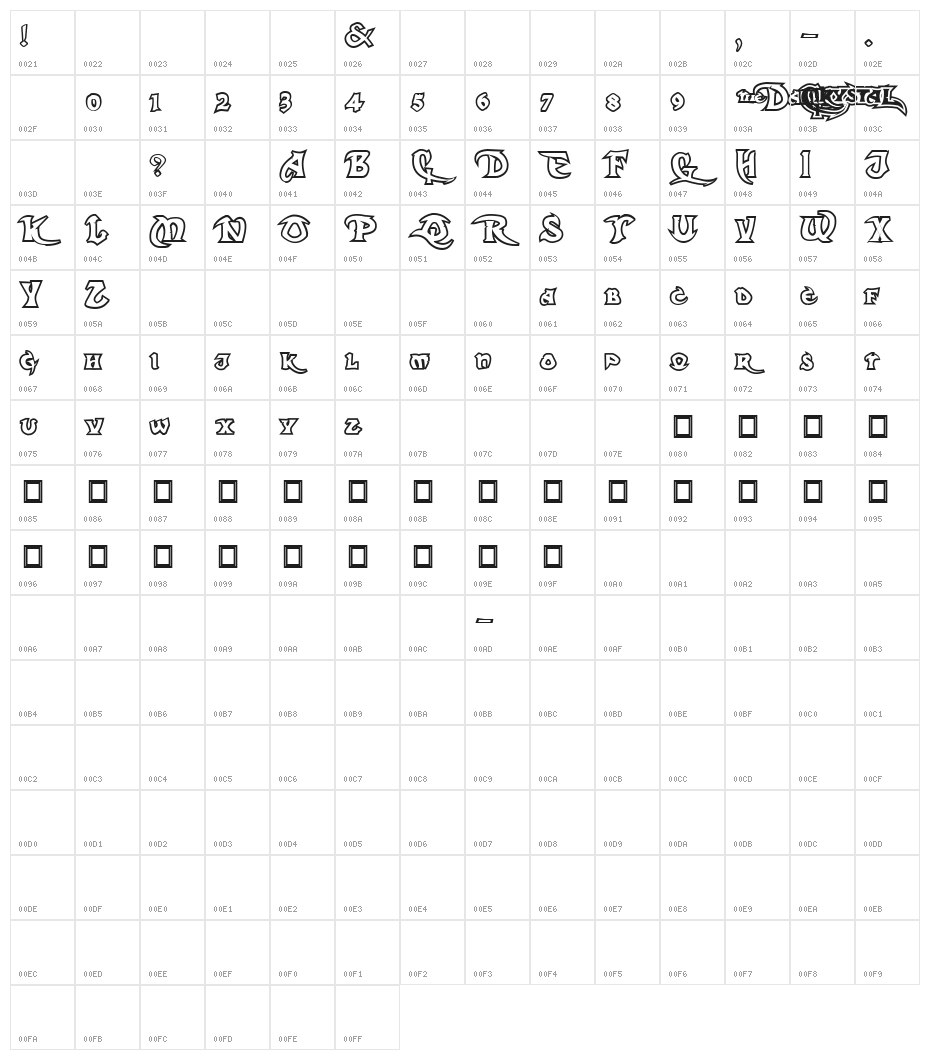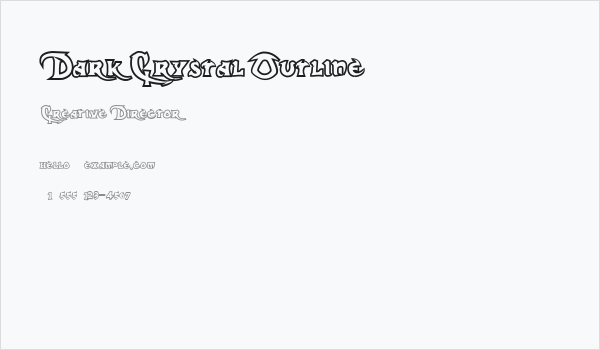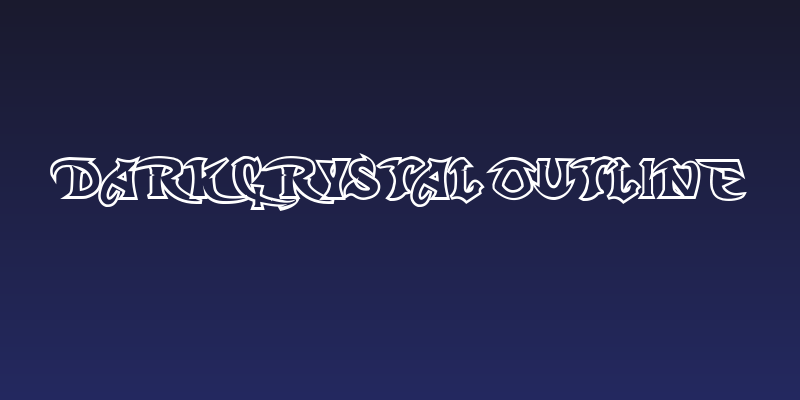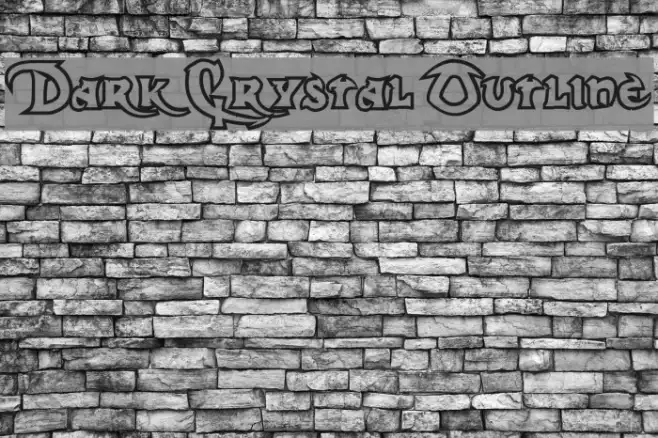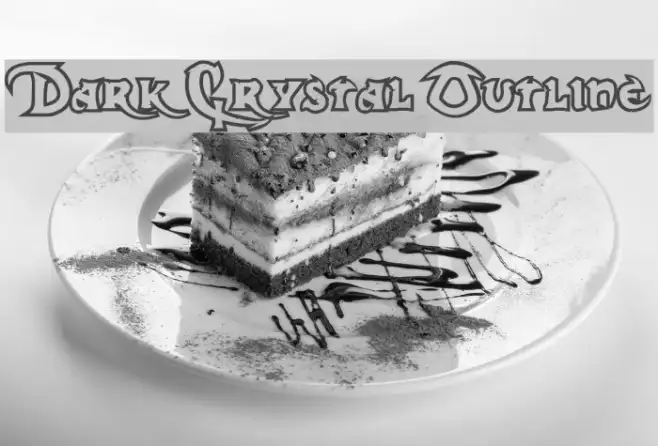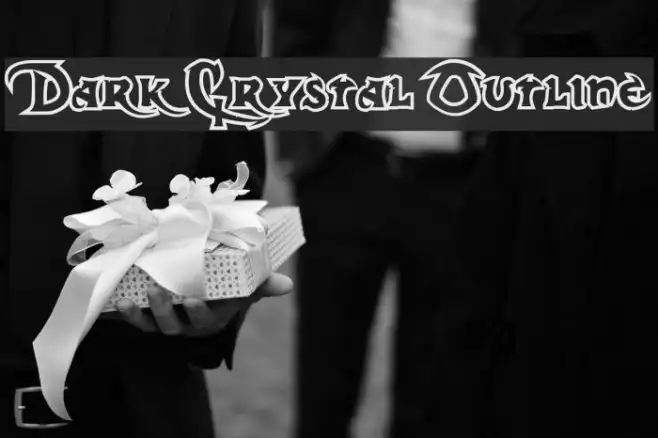
Dark Crystal Outline Font
Dark Crystal Outline Description
This font features a bold, decorative style with an outline effect that gives it a striking and dramatic appearance. The characters are designed with sharp, angular edges and intricate details that evoke a sense of fantasy and adventure. The uppercase and lowercase letters maintain a consistent style, with the uppercase being more elaborate. The numbers and special characters are equally ornate, making the font suitable for eye-catching designs. Its unique aesthetic makes it ideal for projects that require a touch of mystique and boldness.
| Proposed Projects | Ideal for fantasy-themed posters, video game titles, book covers, and branding that requires a dramatic flair. |